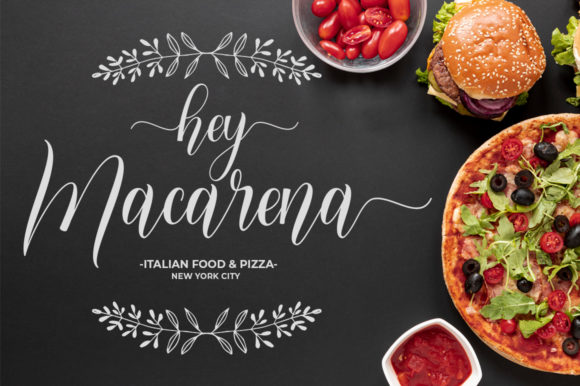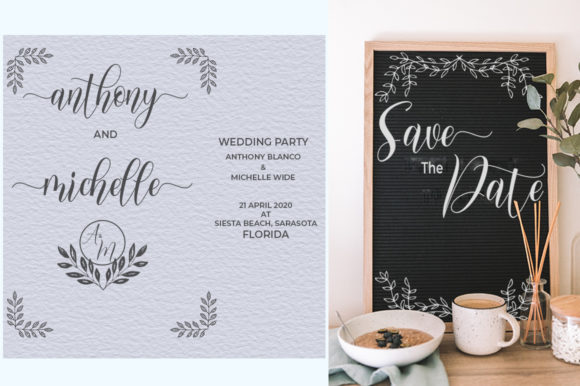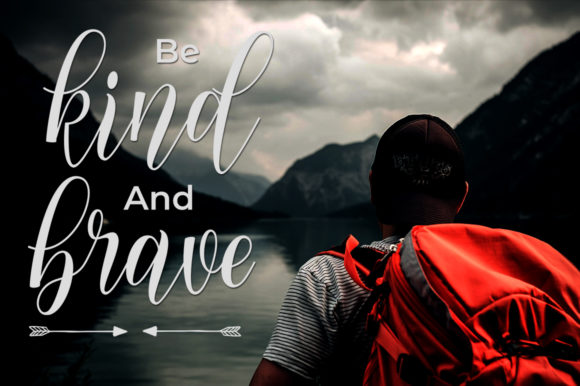
Introduction to Palmita Font
Have you ever stumbled upon the perfect font while working on a creative project, and suddenly, your entire design vision comes alive? This is exactly what happened to me when I discovered the Palmita Font. Its joyful and modern calligraphy style is a game-changer for designers looking to add a touch of romance and whimsy to their work.
| 👤 Author | Natural Ink |
Whether you’re working on a wedding craft or a personal project that requires a sweet and playful feel, the Palmita Font is an excellent choice. With its bouncy and beautiful flow, it’s sure to elevate your design and make it stand out. And the best part? It’s a high-quality design resource that’s free to download, making it an accessible addition to any creative project.
Key Features of Palmita Font
- Unique, elegant design with a touch of sophistication, perfect for adding a premium feel to any creative project.
Honest Review: Palmita Font
As a designer, I’m always on the lookout for high-quality design resources to enhance my creative projects. Recently, I came across the Palmita Font, and I must say, it’s a great addition to my design arsenal.
Here are some of the things that work well with the Palmita Font:
- ✨ High-quality font design: The Palmita Font has a clean and elegant design that’s perfect for a variety of creative projects.
- ✨ Versatile: This font can be used for both print and digital design, making it a great resource for designers who work on multiple projects.
- ⚠️ Limited character set: The Palmita Font only includes a limited character set, which may not be suitable for designers who need a font with a wide range of characters.
Overall, I’m impressed with the Palmita Font, and I think it’s a great addition to any designer’s toolkit. While it may have a few limitations, its high-quality design and free download make it a great resource for designers who are looking for a versatile and stylish font.
Tips for Getting the Most Out of Palmita Font
To get the most out of Palmita Font, use it on a transparent background to create a clean and modern look. This font is perfect for creative projects that require a high-quality, unique font. Experiment with different font sizes, colors, and styles to find the perfect combination for your design.
The Palmita Font is ideal for various design projects, including logos, business cards, posters, and social media graphics. Its high-quality design and transparent background make it a versatile font for both personal and professional use. Whether you’re working on a free download project or a paid design, Palmita Font is a great choice.